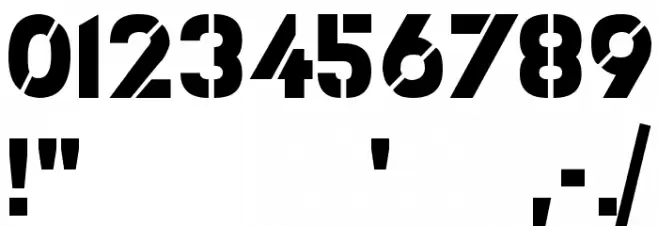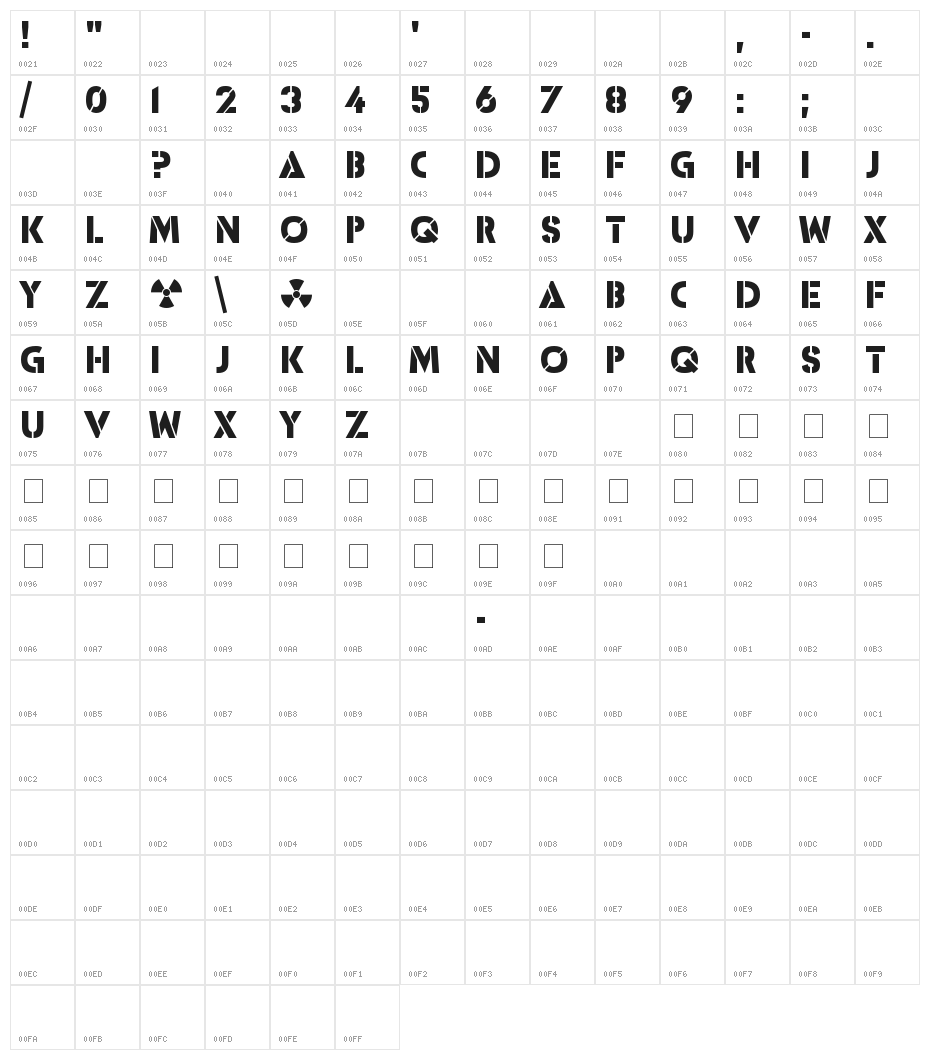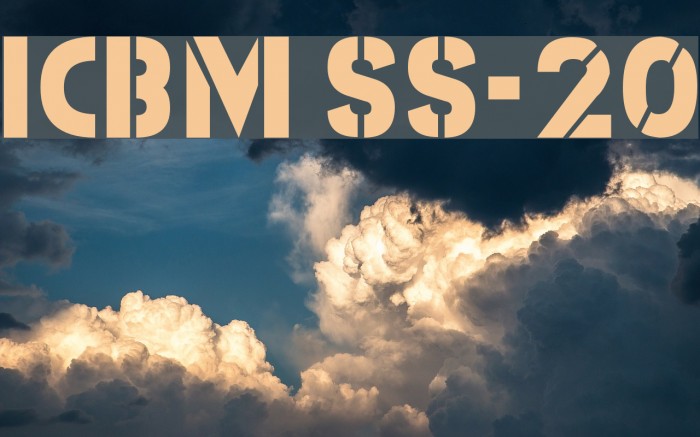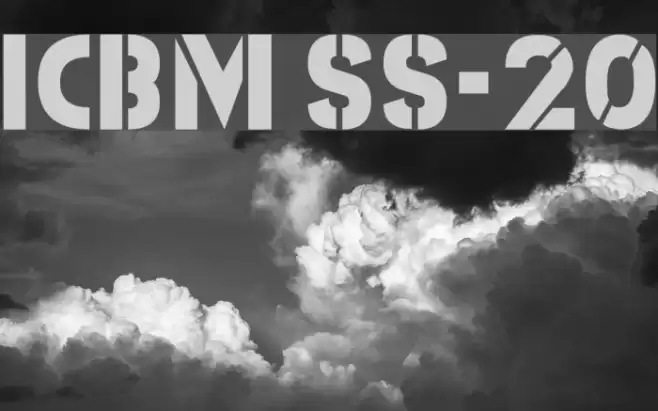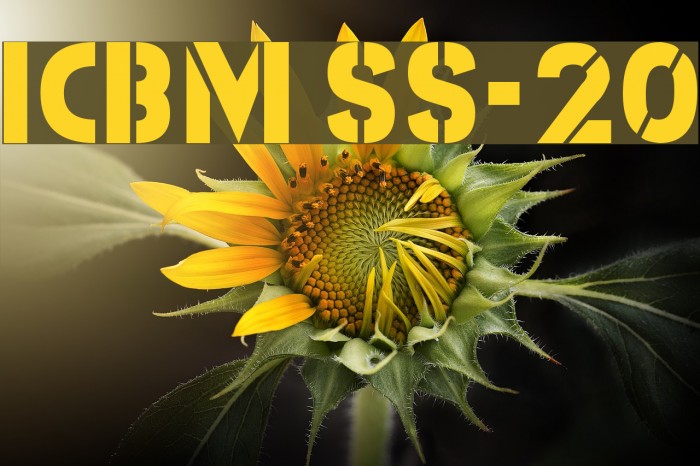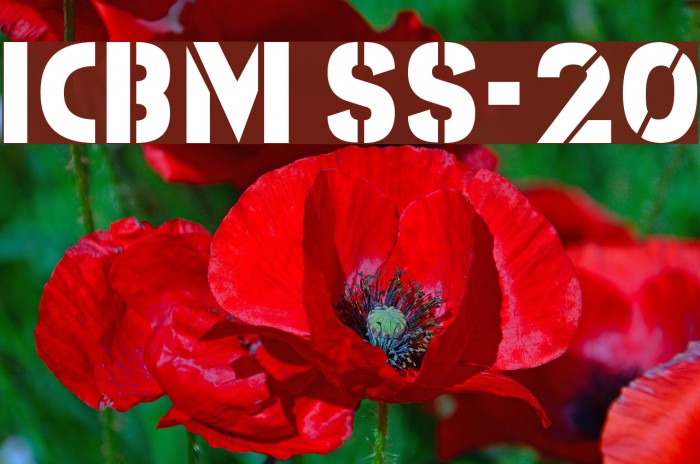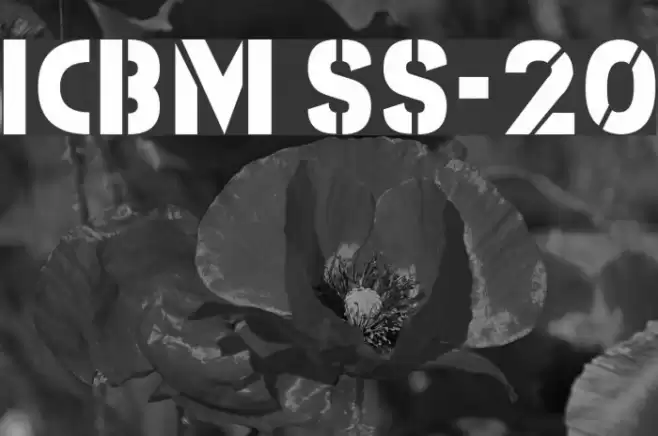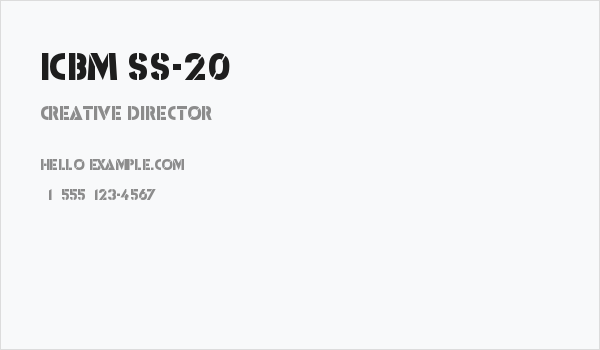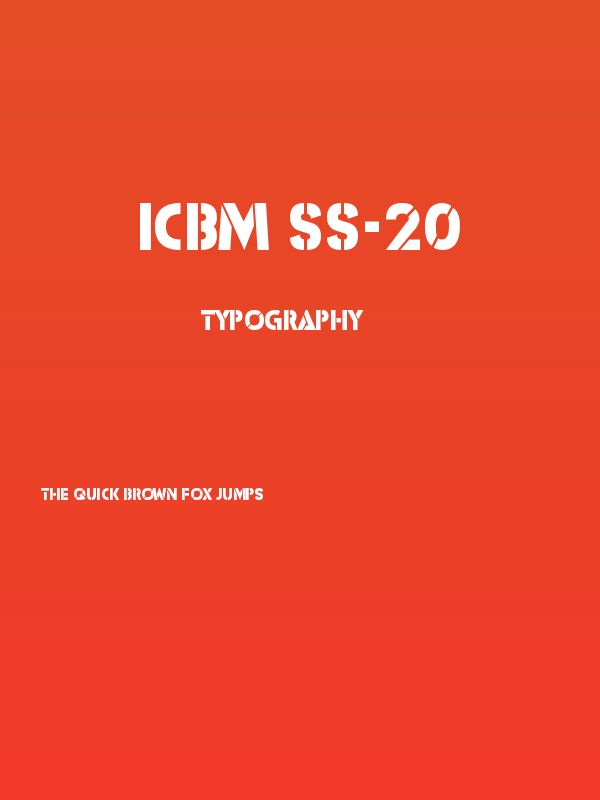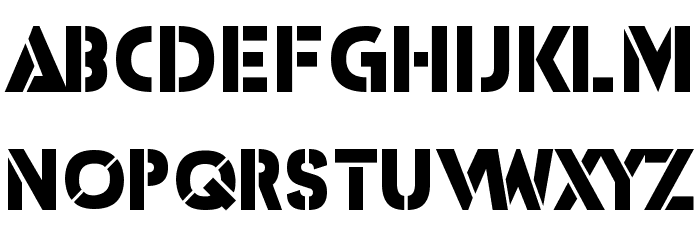
ICBM SS-20 Font
ICBM SS-20 Description
This font features a bold, geometric design with strong, angular lines and a futuristic aesthetic. The characters are constructed with a series of sharp, diagonal cuts and solid shapes, creating a sense of movement and dynamism. The uppercase letters are particularly striking, with their bold forms and unique angles. The numbers and special characters maintain the same bold and angular style, ensuring consistency across all elements. This font is ideal for projects that require a modern and impactful look, such as technology branding, sci-fi themed designs, or any application where a strong visual presence is needed.